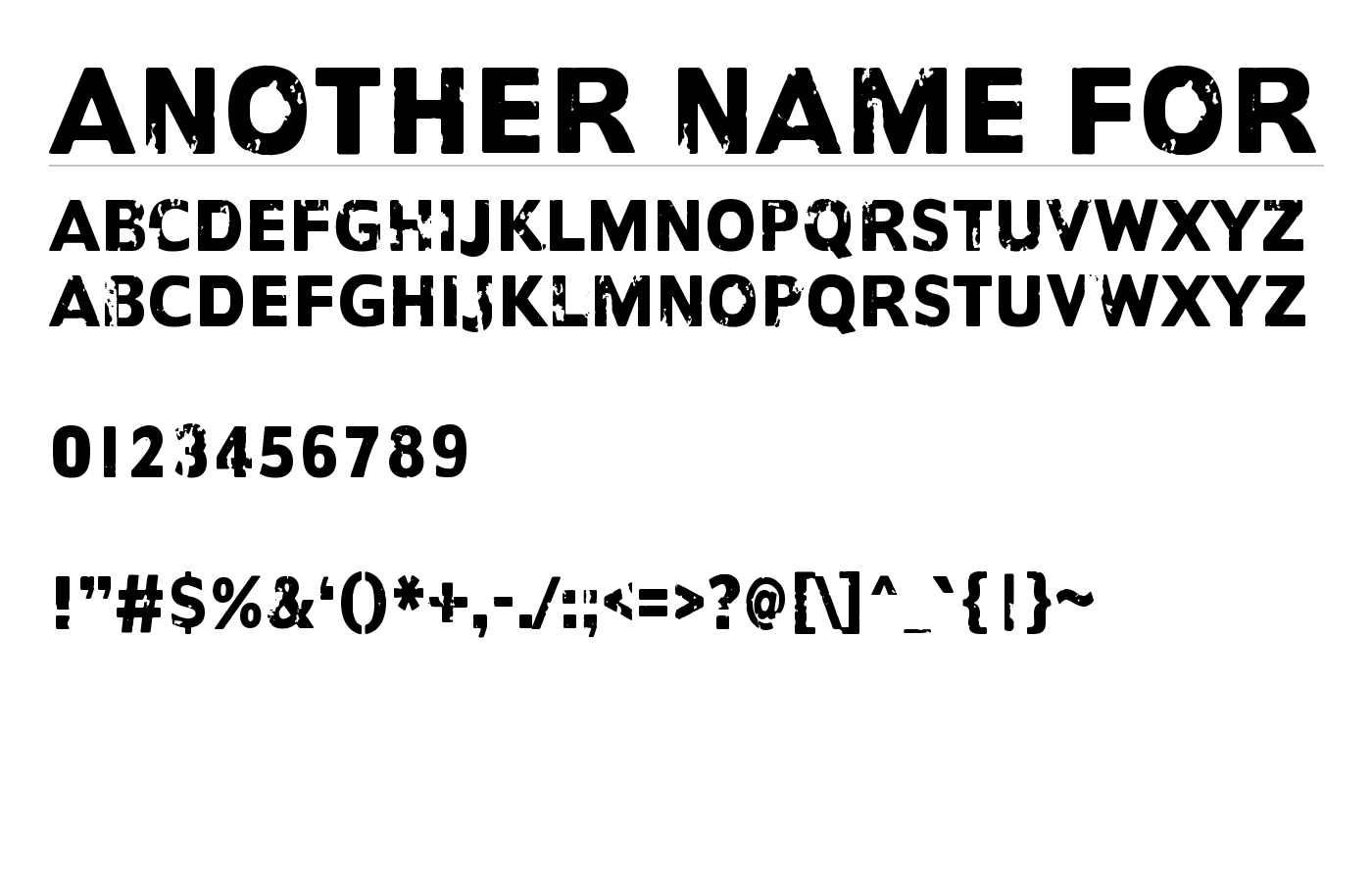
Another Name for Font is a bold, condensed sans serif with a gritty, distressed texture that gives it a strong, industrial feel. Its thick strokes and rough, irregular patches make it ideal for eye-catching headlines, posters, or branding that aims to convey toughness and urban edge. This font works best in designs that want to stand out with a bold, weathered, and gritty personality.
Another name for Font
About Another name for Font